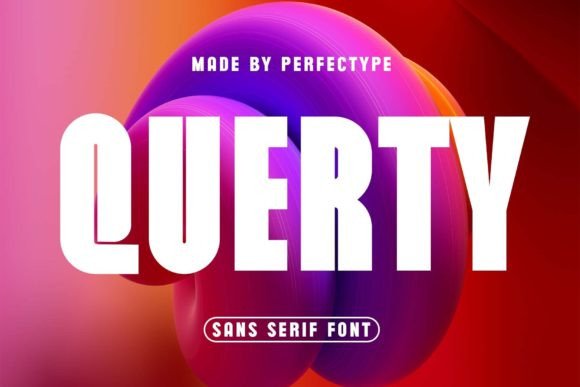
In a world of digital distraction, clarity is a rare gem. Enter Querty Font, a sans serif masterpiece, designed by Perfectype, to redefine your reading experience. Querty Font isn't just a font; it's a soothing balm for your eyes, guiding you smoothly through digital landscapes. Its modern and unique shape, inspired by the harmonious flow of nature, brings a touch of tranquility to your screens.
With Querty Font, reading becomes an effortless glide. Its natural writing style mimics the gentle rhythm of your thoughts, allowing words to flow seamlessly from one to another. Your eyes will thank you for the relief, as they effortlessly absorb information, free from the strain of deciphering cluttered or poorly designed fonts.
But Querty Font's beauty goes beyond mere readability. Its versatility is a creative chameleon, adapting seamlessly to a myriad of design projects. Envision the possibilities: branding that speaks volumes, web designs that captivate, editorial pieces that ignite imaginations, prints that come alive, and crafts that exude charm.
With Querty Font, your creativity knows no bounds. Its elegant curves lend a touch of sophistication to logotypes, transforming them into timeless emblems of identity. Wedding invitations adorned with Querty Font carry an air of romance, whispering promises of eternal love. Design heartfelt cards that touch souls, labels that demand attention, and packaging that tells a captivating story.
Unlock your creative potential and watch as Querty Font breathes life into your ideas. It's the perfect font for modern minimalists, passionate designers, and anyone who appreciates the beauty of clarity. Experience the difference, embrace the serenity, and let Querty Font redefine your digital world.